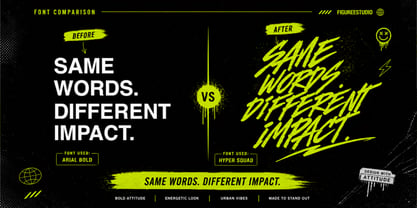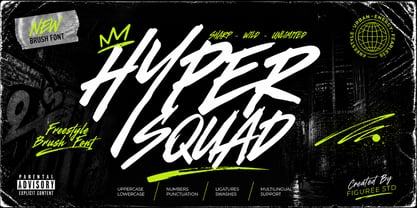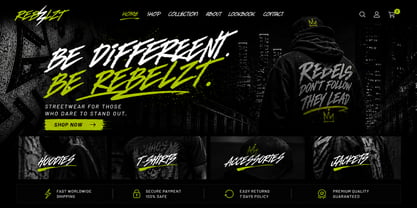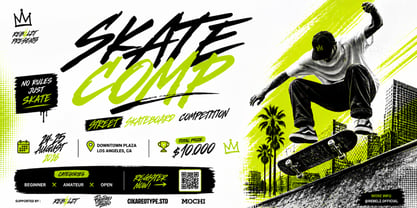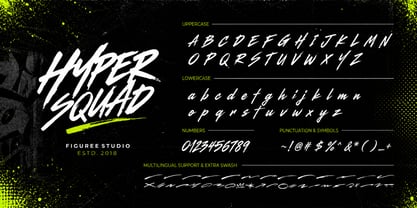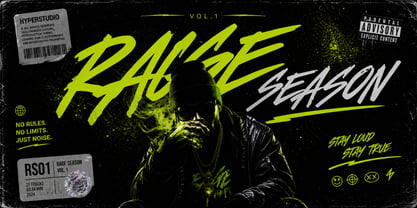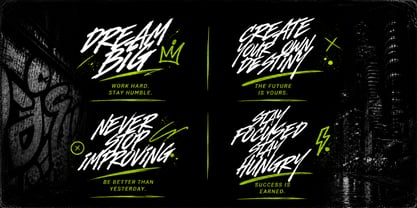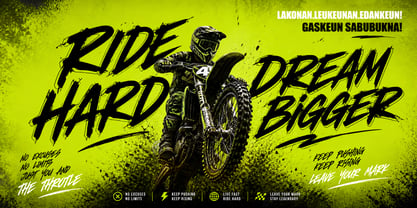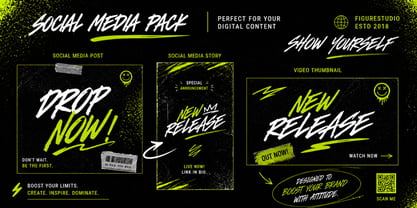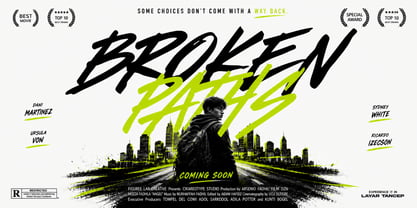
Hyper Squad
von Figuree Studio
Die Schriftfamilie Hyper Squad wurde von Icep Anwar Fadhil entworfen und von Figuree Studio veröffentlicht. Hyper Squad enthält 2 Stile und Familienpaketoptionen. Mehr über diese Familie
Hyper Squad – Freestyle Brush Font is expertly crafted to infuse your typography with natural movement and expressive energy. Drawing inspiration from hand-painted strokes, this font showcases an organic brush style that exudes spontaneity and character. It is ideal for projects demanding a strong visual voice, including posters, headlines, social media graphics, and creative layouts. Featuring both uppercase and lowercase characters, Hyper Squad offers versatility for constructing dynamic compositions. The varied letterforms create a natural rhythm, allowing your text to feel vibrant and alive rather than rigid. Enhanced by ligatures and additional swash elements, you can effortlessly elevate your typography with fluid connections and extended strokes that impart personality. This font caters to a broad spectrum of creative applications. Whether you are crafting bold titles, promotional visuals, video thumbnails, or digital content, Hyper Squad ensures your lettering stands out distinctly. Its brush texture provides a handcrafted aesthetic while ensuring readability across various sizes and formats.
Designer: Icep Anwar Fadhil
Foundry: Figuree Studio